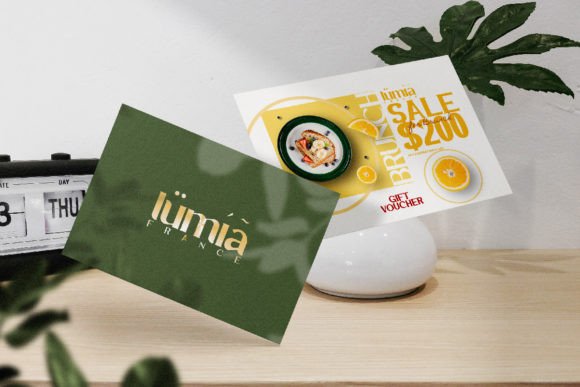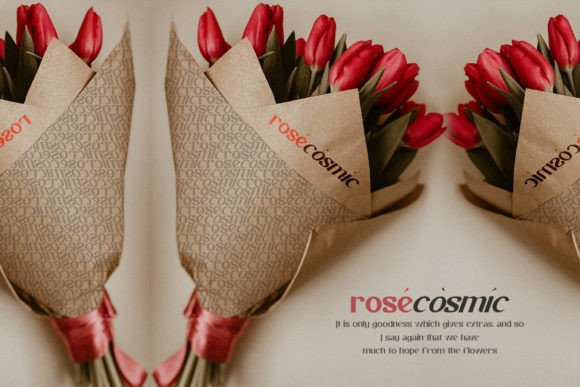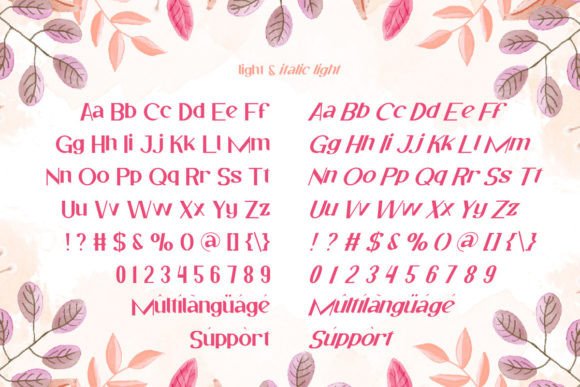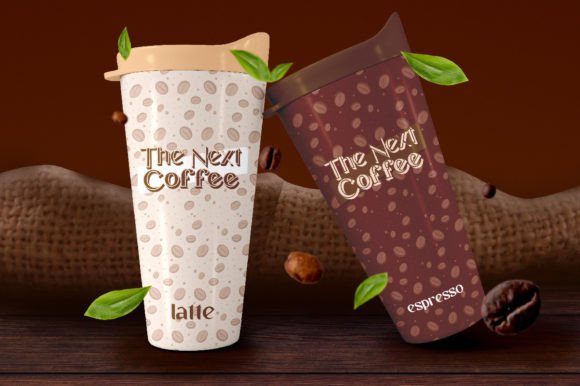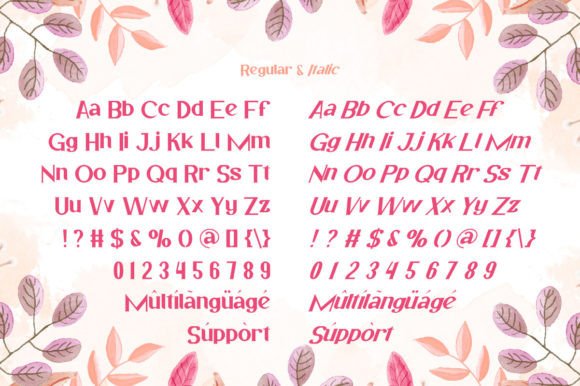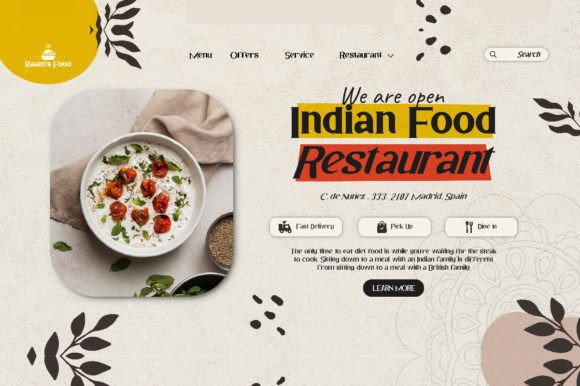
Introduction to Next Person Font Font
Fonts play a crucial role in design, and the Next Person Font font is a typeface that brings both character and versatility to any project. Whether you’re working on a branding project, a website, or a print design, the Next Person Font font offers a unique style that can elevate your work.
Next Person is a simple and modern serif font that is perfect for any project that requires a clean and professional look.
Its sleek and sophisticated design makes it ideal for both print and digital media, while its legibility ensures that your message is always clear and easy to read .
The Next Person Font font is more than just a typeface – it’s a design tool that helps you communicate your message with style and clarity. Its unique character set and versatile design make it suitable for a wide range of applications, from elegant invitations to bold headlines.
With its carefully crafted letterforms and balanced proportions, the Next Person Font font ensures readability and visual appeal across all mediums.
The Next Person Font font stands out with its unique design, exceptional readability, and versatility across various design applications.